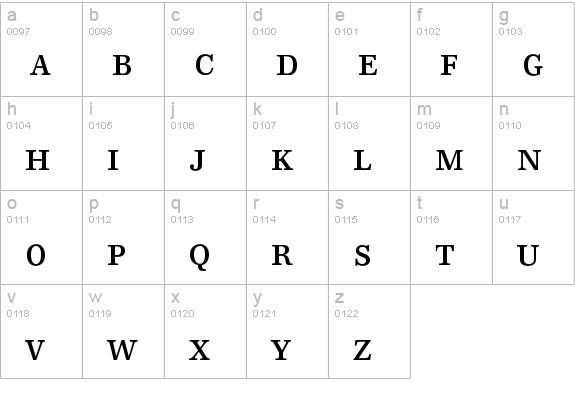
Franklin Antiqua Expert BQ Regular SC Font Details
Franklin Antiqua Expert BQ Regular SC is the standard, neutral variant in the Franklin typeface family \xE2\x80\x94 well suited to general body text, paragraphs, and standard typographic work.
Franklin Antiqua Expert BQ Regular SC font is a classic and elegant typeface that exudes a sense of sophistication and refinement. With its timeless serifs and clean lines, this font is perfect for adding a touch of class to any design project. Whether you are creating invitations, posters, or branding materials, Franklin Antiqua Expert BQ Regular SC font will elevate your work to the next level. The best part about Franklin Antiqua Expert BQ Regular SC font is that it is available for free download at FontsMarket.com. You can easily access this beautiful font and incorporate it into your projects without any cost. Don't miss out on the opportunity to enhance your designs with the timeless charm of Franklin Antiqua Expert BQ Regular SC font. Download it now and see the difference it can make in your work!